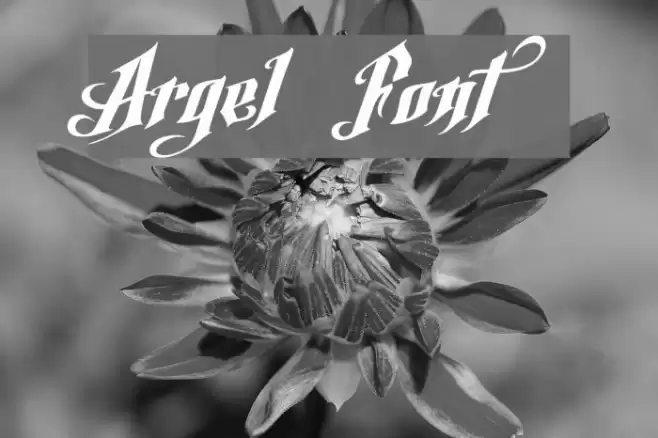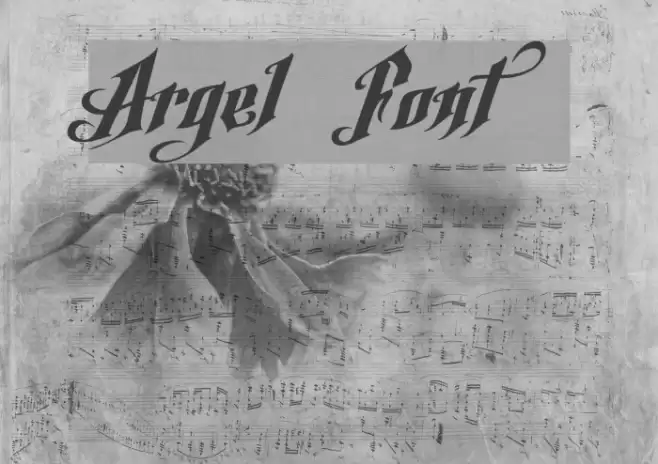
Argel Font Font
Argel Font Description
This font features a bold and dramatic style with sharp, angular lines and a gothic influence. The uppercase letters are particularly striking, with exaggerated serifs and a sense of movement that suggests a calligraphic origin. The lowercase letters maintain this dynamic quality, offering a cohesive look across the alphabet. The numerals and special characters are equally stylized, ensuring consistency throughout. This font's strong visual impact makes it ideal for projects that require a bold statement.
A bold, gothic-inspired font with sharp, angular lines and dramatic serifs from Uncategorized fonts.
- Proposed Projects: Ideal for tattoo designs, band logos, posters, and any project requiring a bold, gothic aesthetic.
- Character Spacing: Tight
- Overall Style: Gothic, Decorative